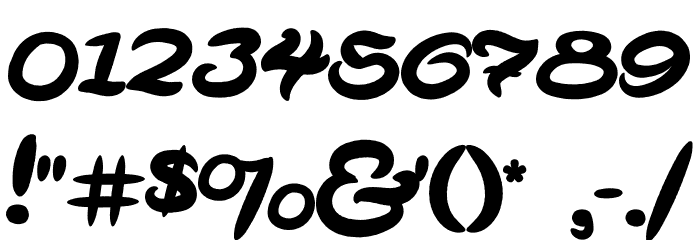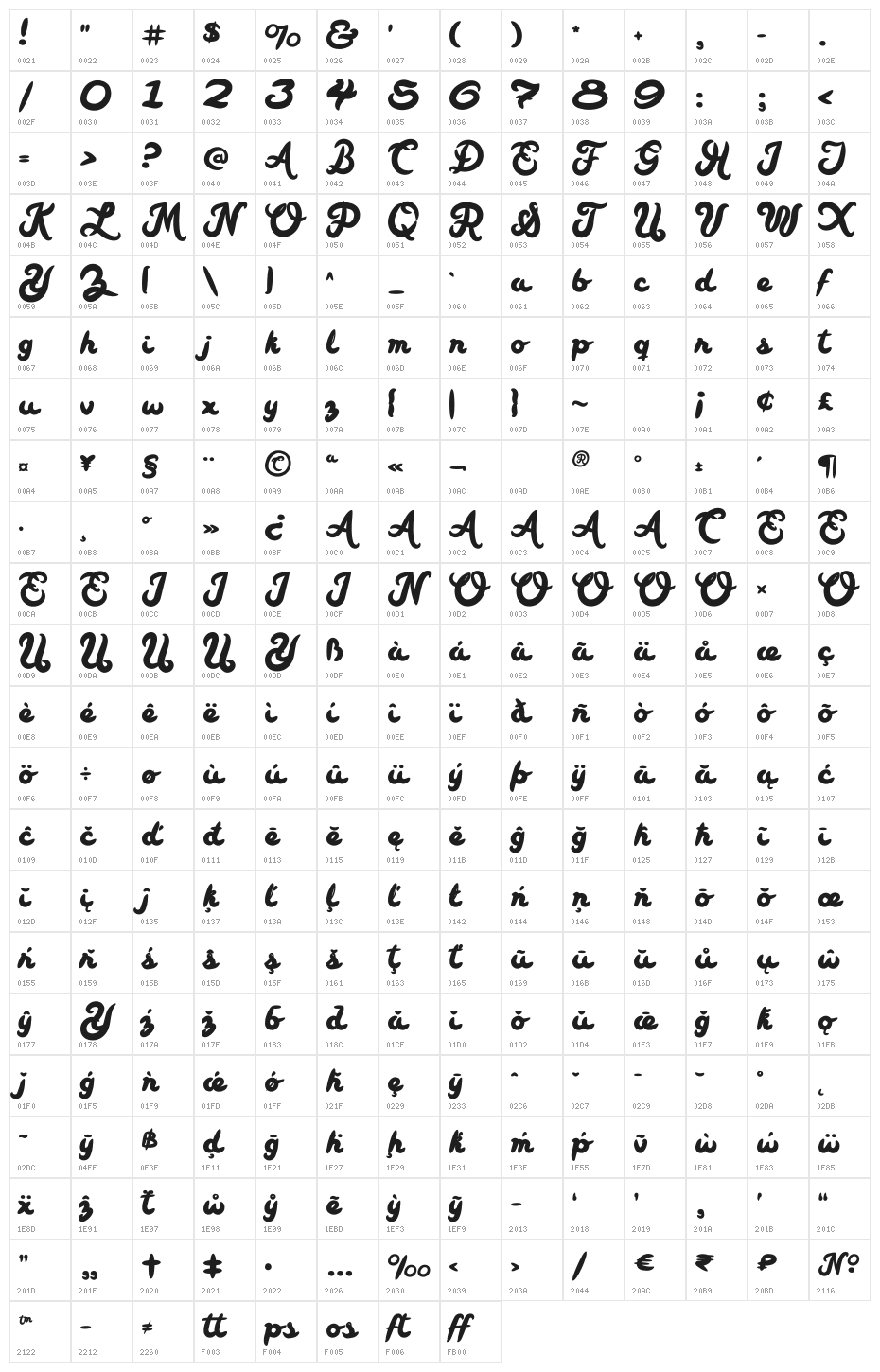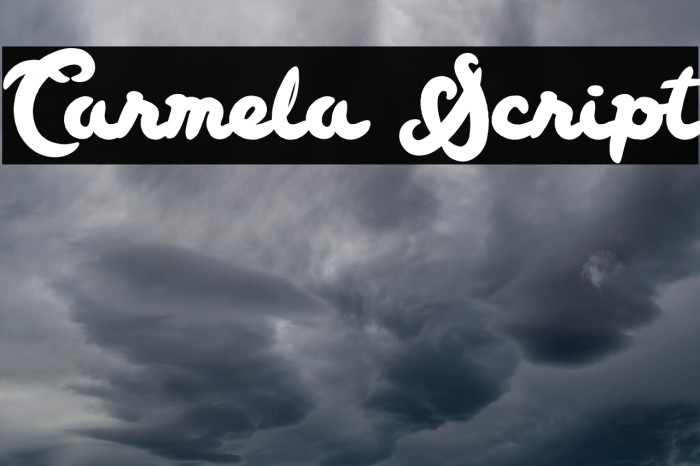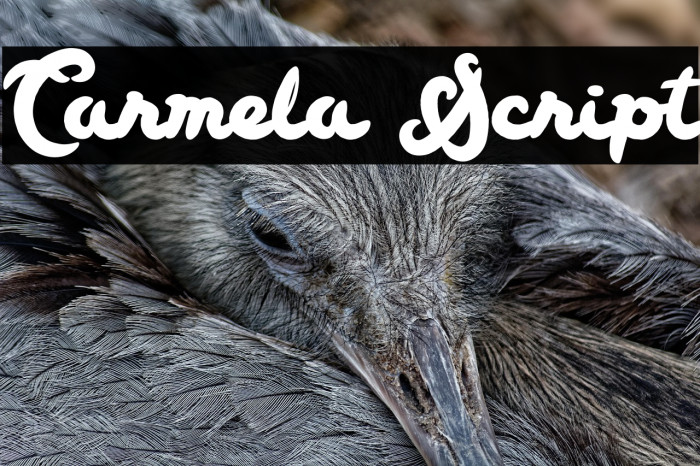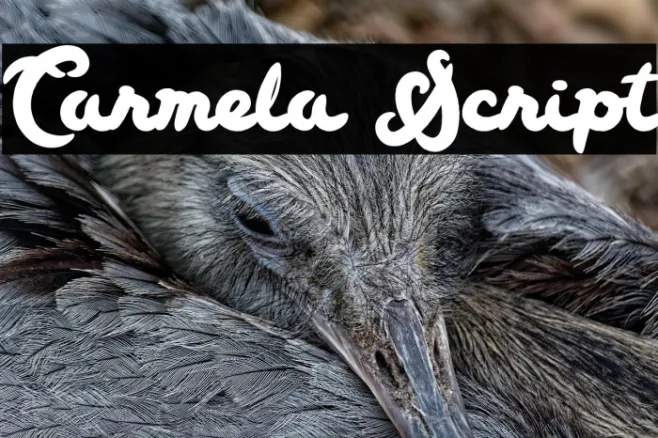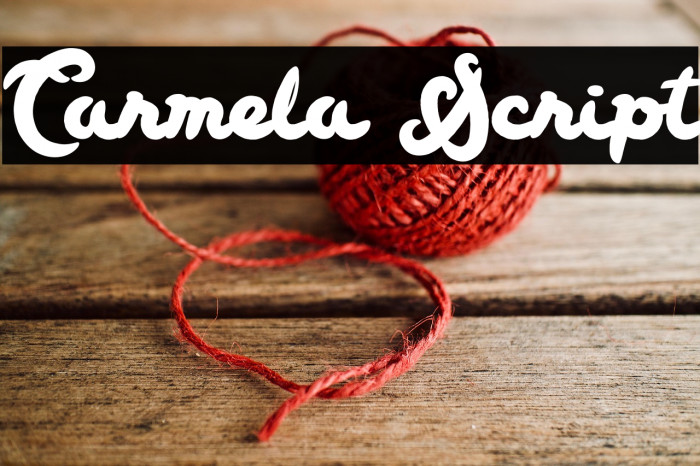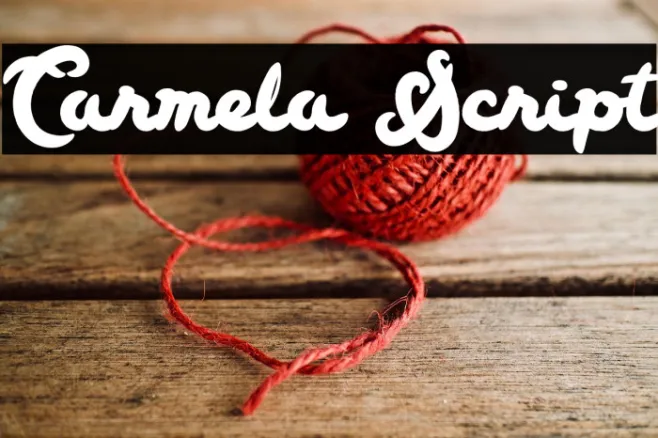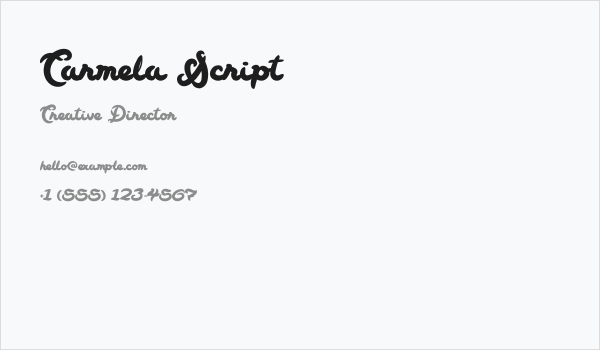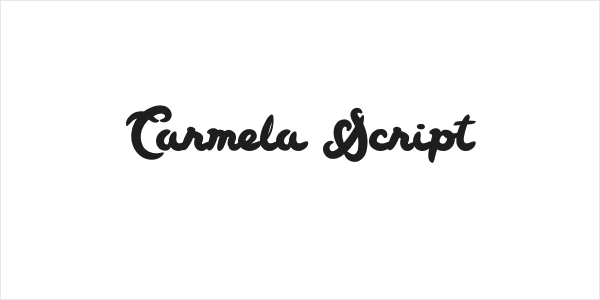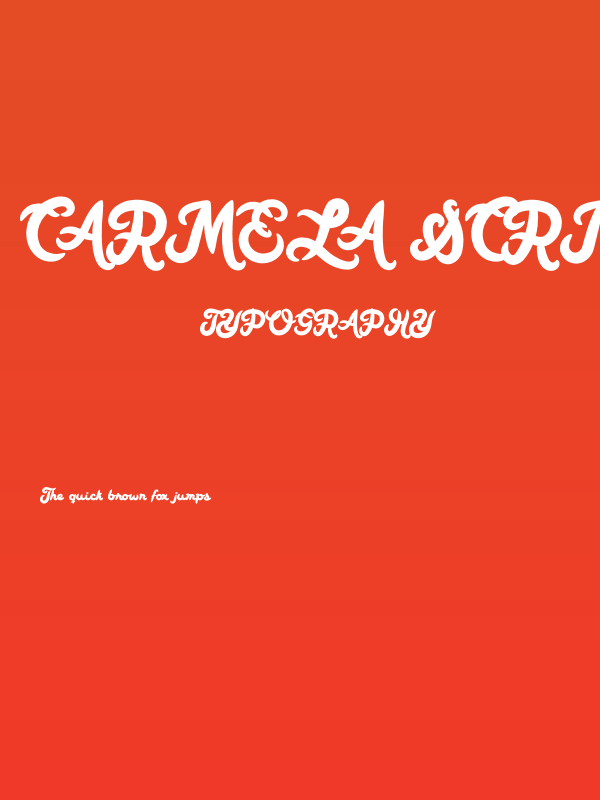
Carmela Script Font
Carmela Script Description
This font features a bold, flowing script style with a strong emphasis on curves and loops, giving it a dynamic and lively appearance. The uppercase letters are ornate, with exaggerated flourishes that add a touch of elegance and sophistication. The lowercase letters maintain a consistent flow, enhancing readability while retaining the decorative nature of the font. Numbers and special characters are designed to match the overall style, ensuring a cohesive look across all text elements. This font is ideal for projects that require a personal, handwritten touch, such as invitations, greeting cards, and branding materials.
| Proposed Projects | Ideal for invitations, greeting cards, branding, and decorative projects. |